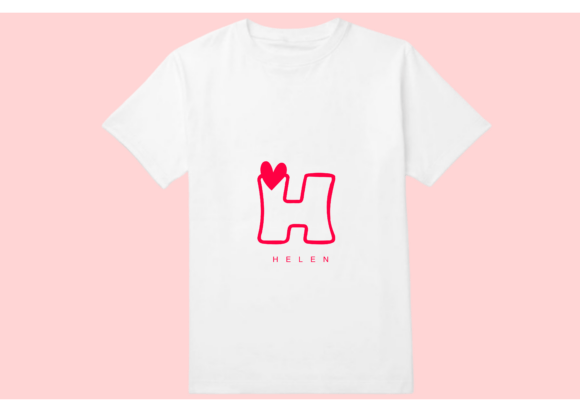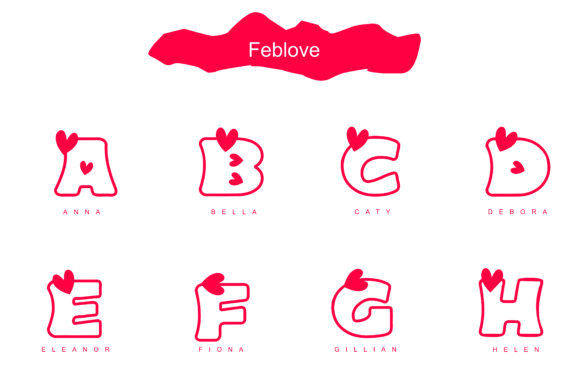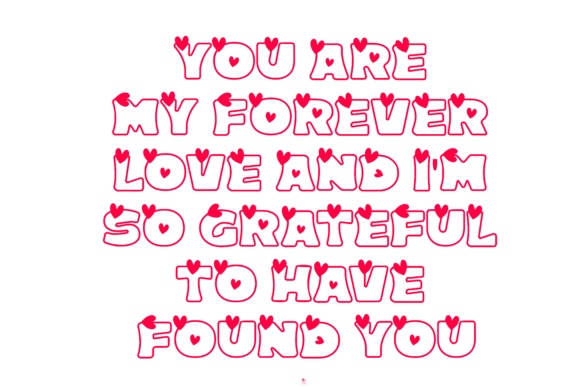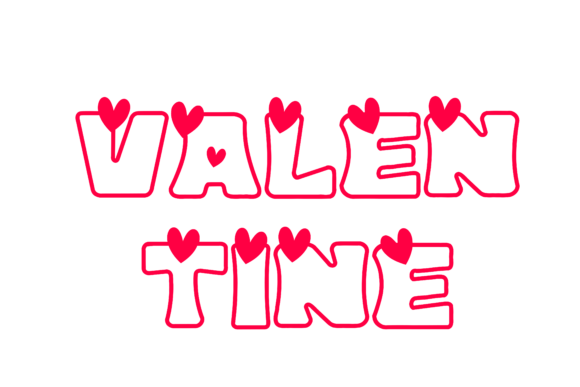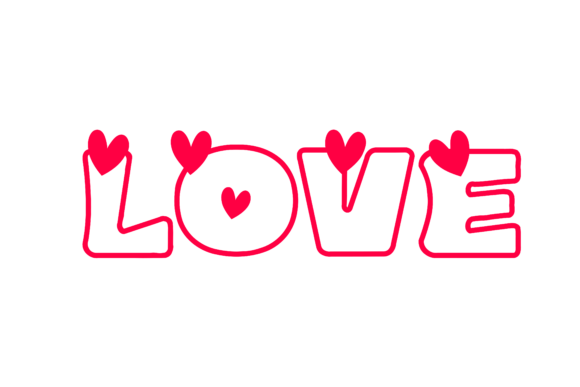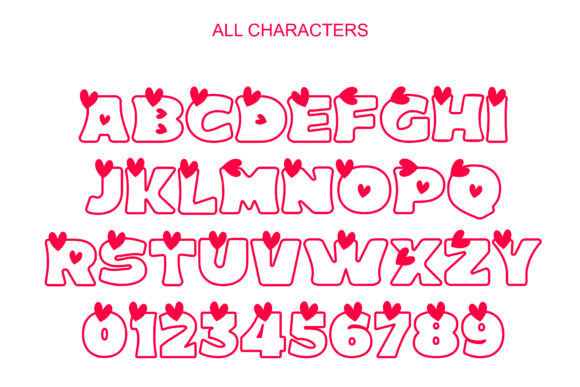
Unlocking Endless Possibilities with Feblove Font
Have you ever found yourself stuck in a creative rut, yearning for a spark to ignite your imagination and bring your design visions to life? For many designers, this moment of creative stagnation is a familiar feeling, but what if you could tap into a font that radiates unwavering vitality and sets your artistic soul ablaze?
Enter the Feblove Font, a trailblazer in typefaces that seamlessly blends with your inventive spirit, amplifying your innovative expressions with density and dimensions. This exceptional typeface is crafted to unlock new layers of design mastery, allowing you to craft captivating visual experiences that leave a lasting impression.
As a designer, the Feblove Font is a valuable asset that will guide your artistic sojourn into unseen realms of creativity, igniting your imagination and fueling your passion for innovative design.
Feblove Font Key Features
- Font Family: Feblove Font comes in 3 font styles – Regular, Italic, and Bold. Each style is designed to provide a unique and elegant look for various applications.
- Unique Characteristics: The font features a distinctive, hand-drawn aesthetic with subtle flair and elegance, making it ideal for creative projects that require a touch of sophistication.
Feblove Font Review
As a designer, I was excited to dive into the Feblove Font and see what it had to offer. Overall, I’d say it’s a solid choice for those looking for a unique, modern font. ✨ The rounded edges and soft curves give it a friendly, approachable feel that’s perfect for branding and marketing materials.
One of the things I love about Feblove is its versatility. ✨ It’s suitable for both digital and print applications, and the font’s weight range makes it easy to use in a variety of contexts. Whether you’re creating a website, social media graphics, or print materials, Feblove is a great choice.
While Feblove is a great font, there are a few limitations to consider. ⚠️ One of the main issues I have is with the font’s legibility at smaller sizes. While it’s still readable, the letters can start to get a bit fuzzy and difficult to decipher. This may be a concern for those who need to use the font in small print or on smaller devices.
- Limited language support
- No bold italic styles available
Overall, I think Feblove is a great font that’s perfect for designers looking for a modern, friendly feel. While it may have a few limitations, the pros definitely outweigh the cons. With its versatility and unique style, I’d definitely recommend giving Feblove a try.
Feblove Font is ideal for creating romantic and whimsical designs, such as:
- Valentine’s Day cards and posters
- Wedding invitations and decorations
- Love-themed social media graphics
To get the most out of Feblove Font, experiment with different font sizes, colors, and styles to create unique and eye-catching designs.